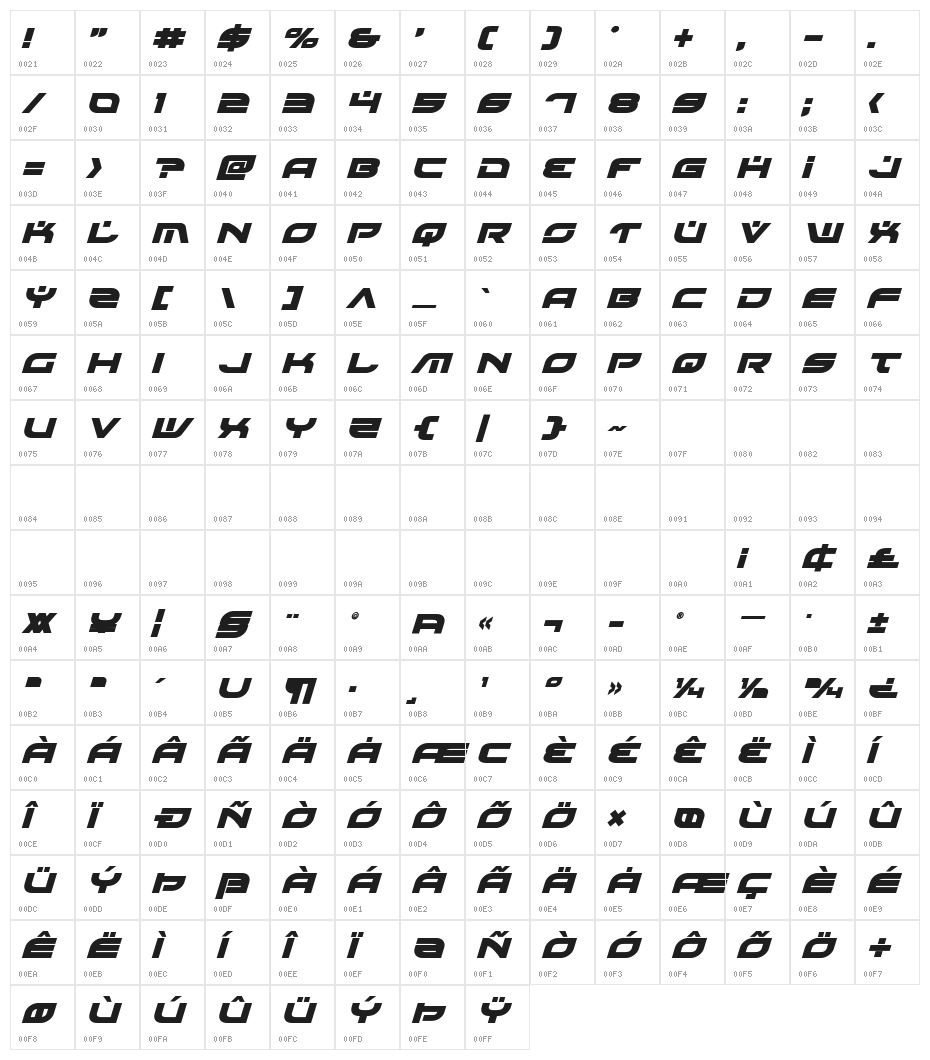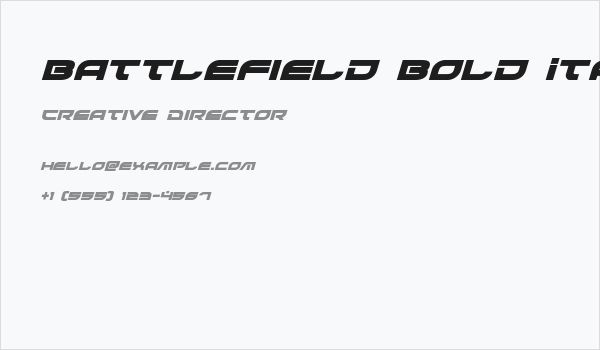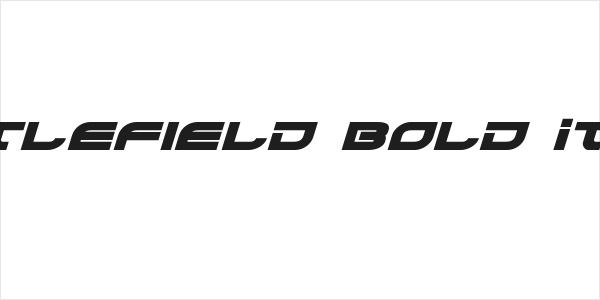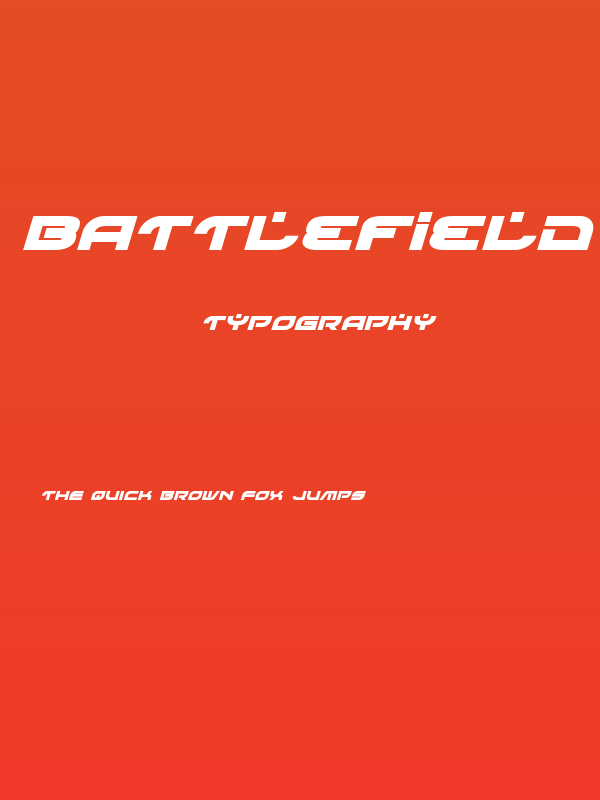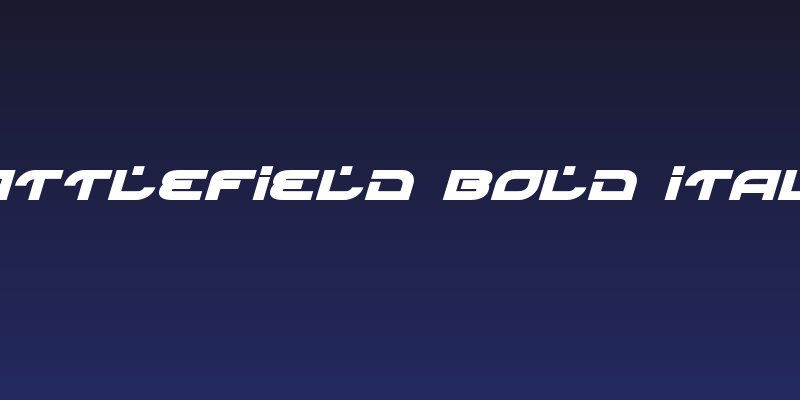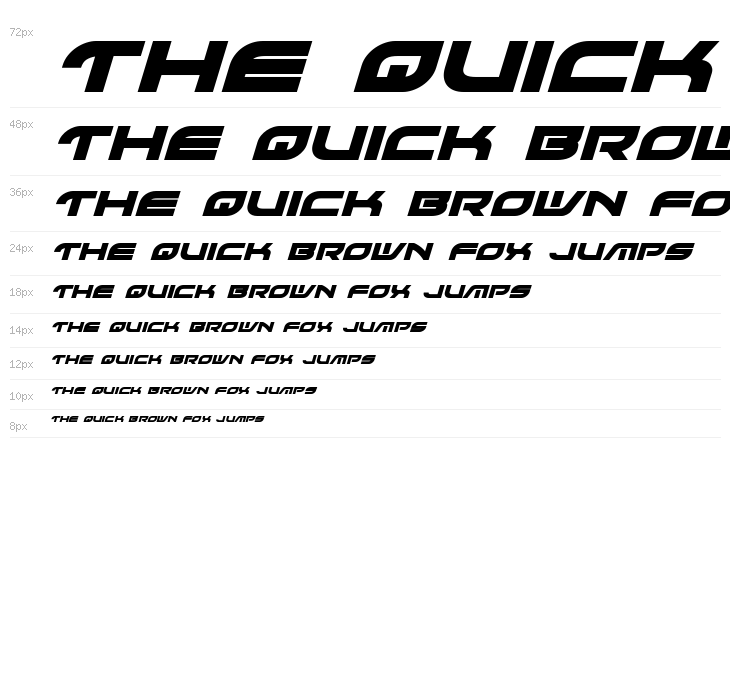
Battlefield Bold Italic Font
Battlefield Bold Italic Description
This font features a bold and italicized style with a futuristic and dynamic appearance. The characters are wide and have a strong presence, making them suitable for impactful designs. The angular and geometric shapes give it a modern and edgy look, while the italic slant adds a sense of motion and speed. The uppercase and lowercase letters maintain a consistent design, with the numerals and special characters complementing the overall aesthetic. The font's bold weight and italic style make it ideal for attention-grabbing headlines and titles.
| Proposed Projects | Ideal for video game titles, action movie posters, sports branding, and tech-related designs. |